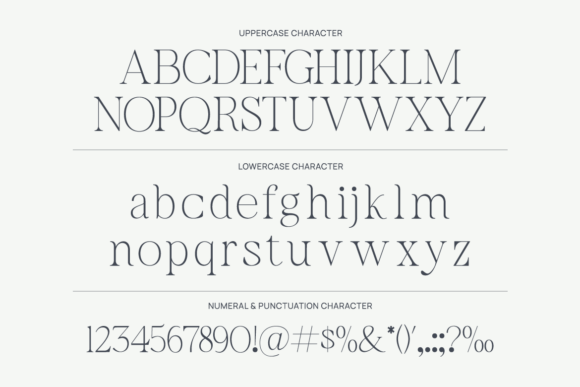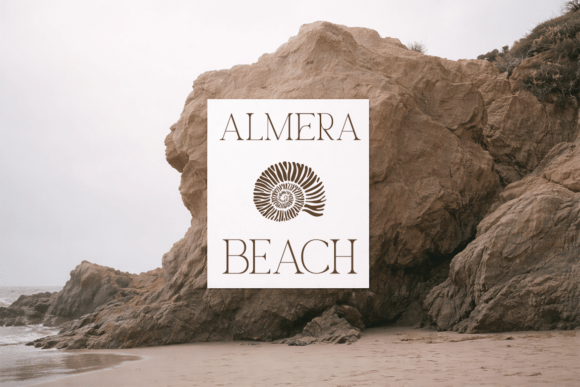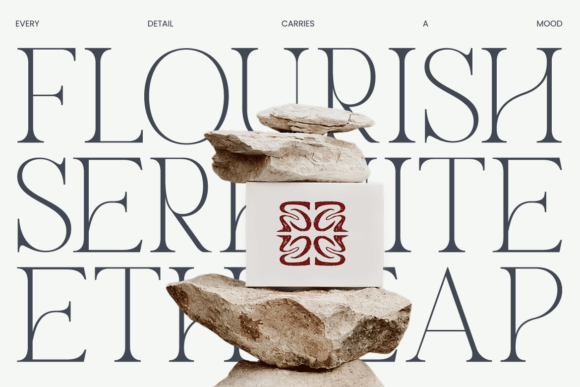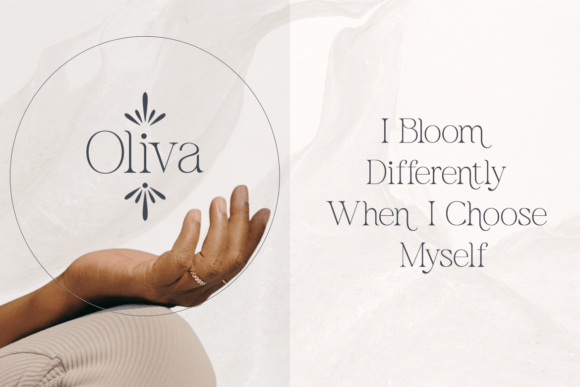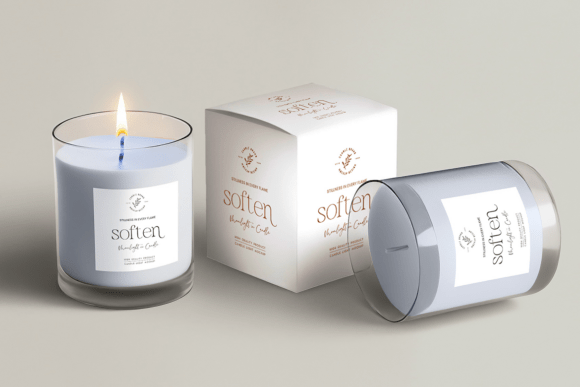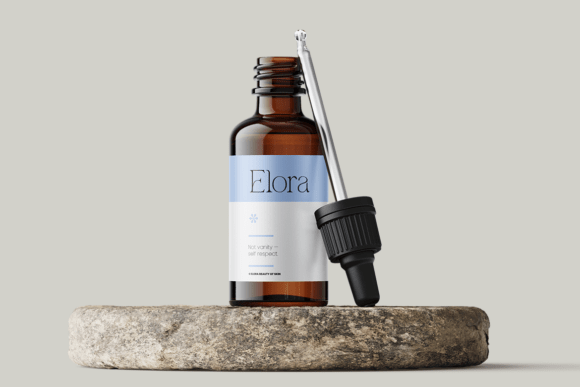
Introduction to Bavelina Font
As designers, we’ve all been there – staring at a blank canvas, waiting for that perfect font to elevate our creative project. For me, it was a late-night brainstorming session, searching for the ideal serif font to match the elegance of a high-end fashion brand’s logo. And then, I stumbled upon Bavelina Font – a modern, sophisticated serif font that exudes effortless luxury.
Bavelina Font is more than just a design resource; it’s a key to unlocking high-quality visual storytelling. Its perfect optical tracking and generous whitespace layout principles create a sense of transparency and clarity, making it perfect for backgrounds with clean, transparent images. Whether you’re working on a luxury fashion lookbook or a premium corporate stationery layout, Bavelina Font is sure to leave a lasting impression.
Key Features of Bavelina Font
- High-quality design with a transparent background, making it ideal for creative projects that require a clean and minimalist look.
- Includes 8 styles, ranging from Thin to Black, allowing for flexibility in design and creative expression.
- Features a high-resolution design, with a resolution of 300 DPI, making it suitable for use in print and digital media.
- Perfect for use in a variety of creative projects, including logos, branding, and typography-based designs.
- Unique characteristics include its modern and elegant feel, making it an excellent choice for designers looking for a high-quality, free font.
Honest Review: Bavelina Font
As a designer, I’m always on the lookout for high-quality design resources to elevate my creative projects. The Bavelina Font caught my attention, and I decided to give it a try. Here’s my honest review.
- ✨ The Bavelina Font has a beautiful, elegant design that’s perfect for creative projects. Its unique style is sure to add a touch of sophistication to any design.
- ✨ The font has a transparent background, which is great for designers who want to create a clean and minimalist look.
- ⚠️ The Bavelina Font may not be suitable for projects that require a bold or dramatic font style. Its delicate design may get lost in more complex designs.
Overall, I’m impressed with the Bavelina Font. While it may have some limitations, its unique design and free download make it a valuable design resource. I would definitely recommend it to designers looking for a high-quality font for their creative projects.
Tips for Getting the Most Out of Bavelina Font
For the best results, use Bavelina Font on a high-resolution design. Experiment with different font sizes and colors to create a visually appealing design. You can also use it as a design resource for creating unique graphics and illustrations.
Bavelina Font is perfect for a variety of creative projects, including logos, graphics, and illustrations. It’s also great for presentations, posters, and social media graphics. With its high quality and transparent background, the possibilities are endless.